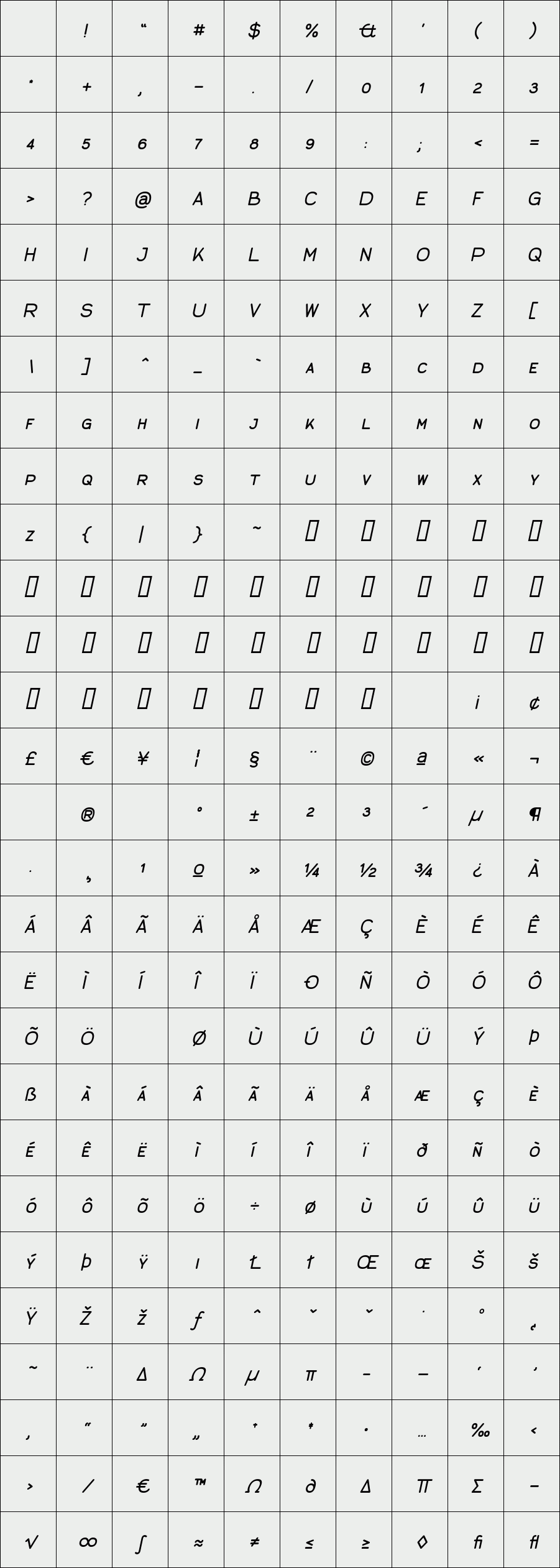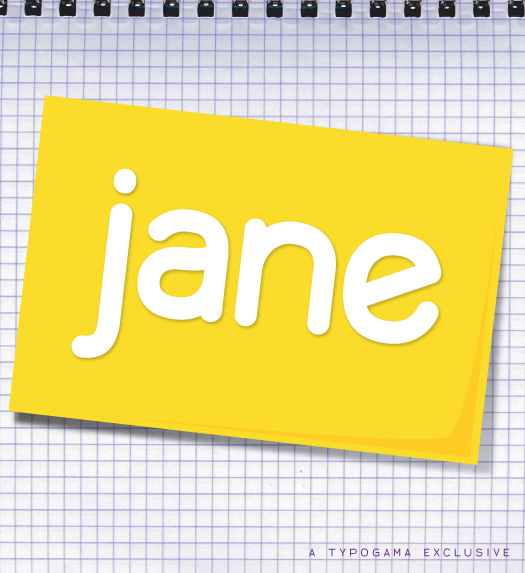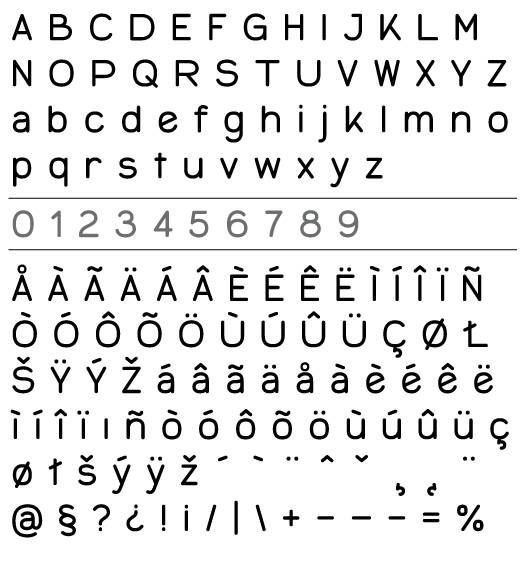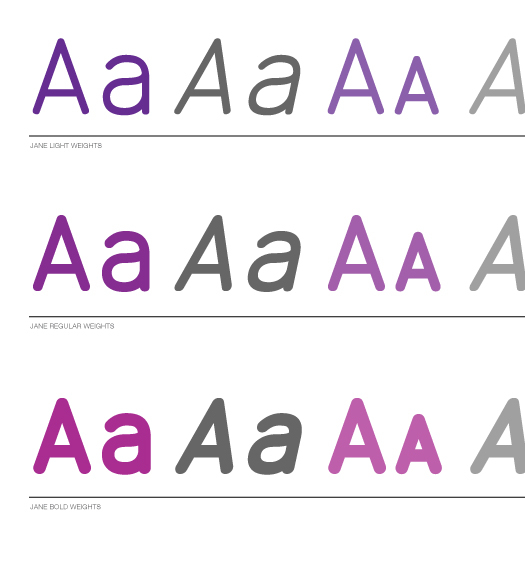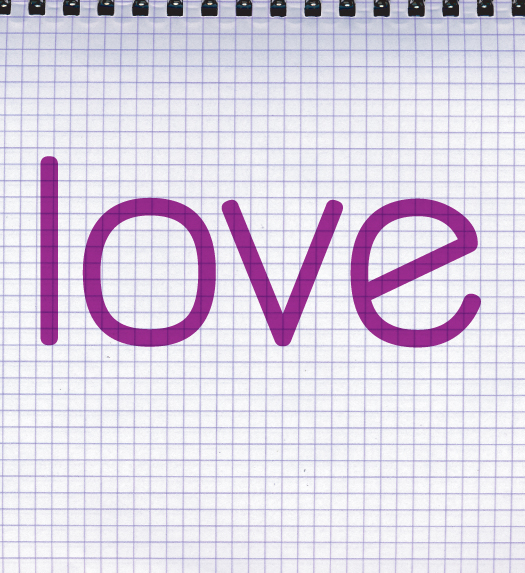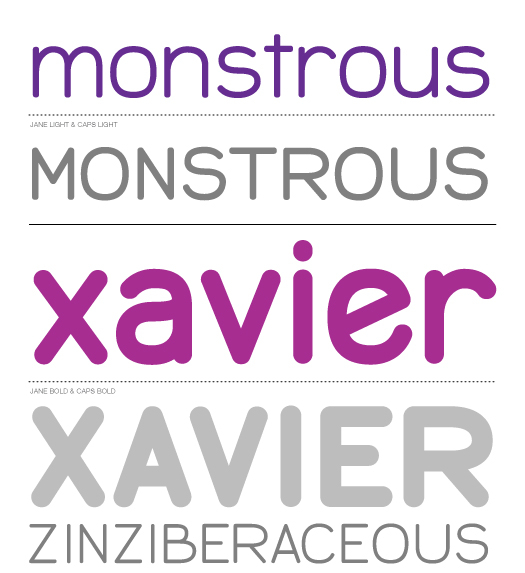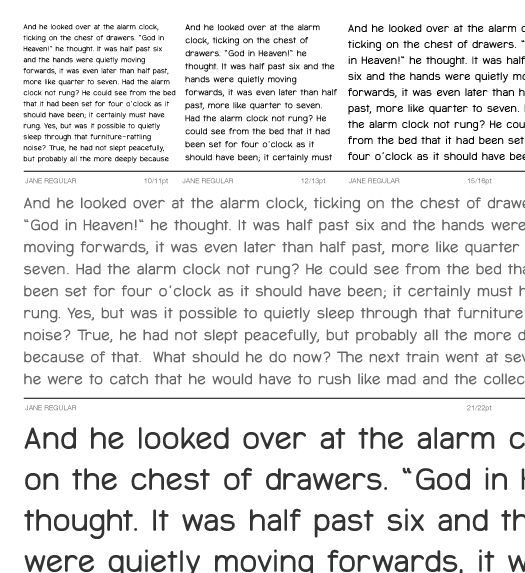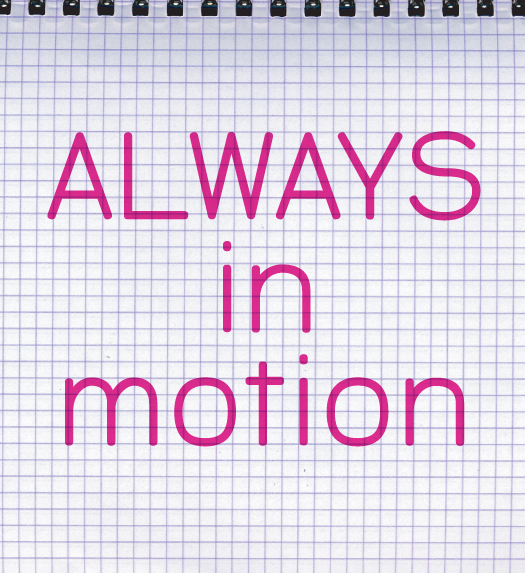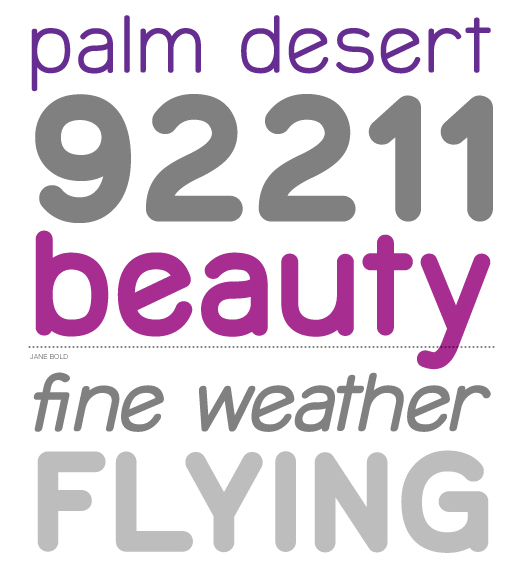
Jane
/ Jane caps regular italic
With the Jane font, the goal was to create a fun, friendly font that used some attributes of more classical typography, like using small capitals or the 2 storey 'a' letter.